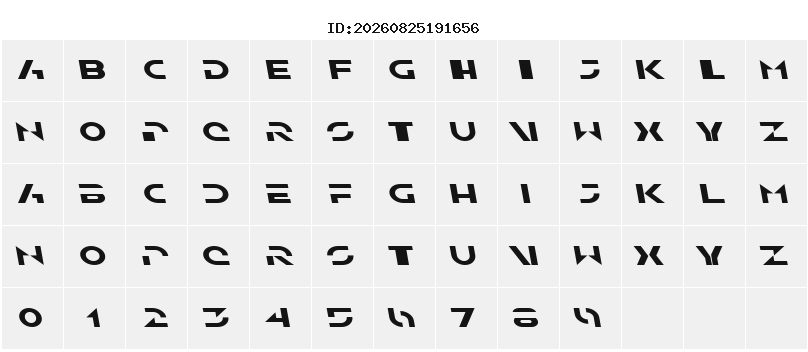
SF Solar Sailer Extended Preview
• Font Name: SF Solar Sailer Extended
• Font ID: SF Solar Sailer Extended Italic
• Full Font Name: SF Solar Sailer Extended Italic
• PostScript Name: SFSolarSailerExtendedItalic
About SF Solar Sailer Extended.ttf
SF Solar Sailer Extended.ttf is a modern, elegant sans-serif font designed for ultimate readability and visual harmony. Perfect for branding, headlines, web design, and print materials.